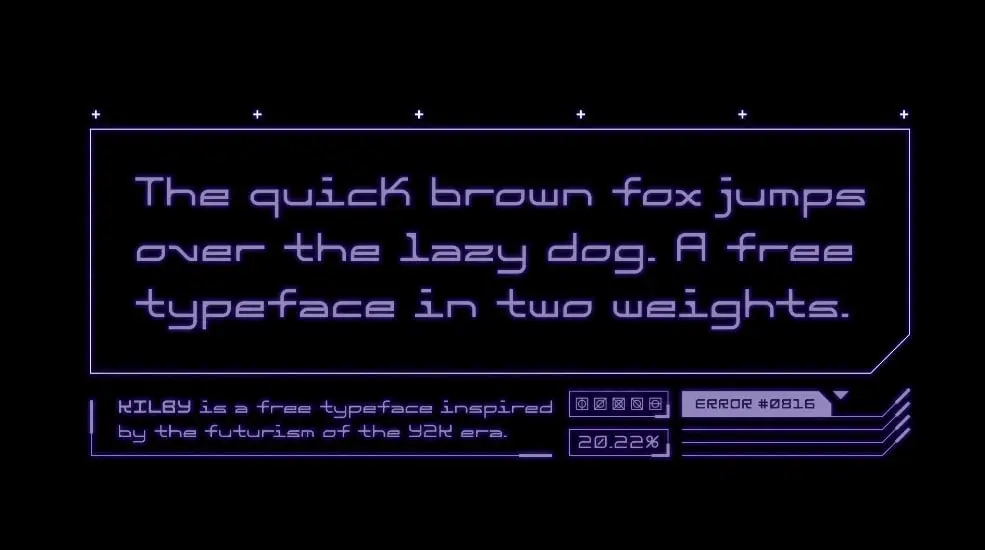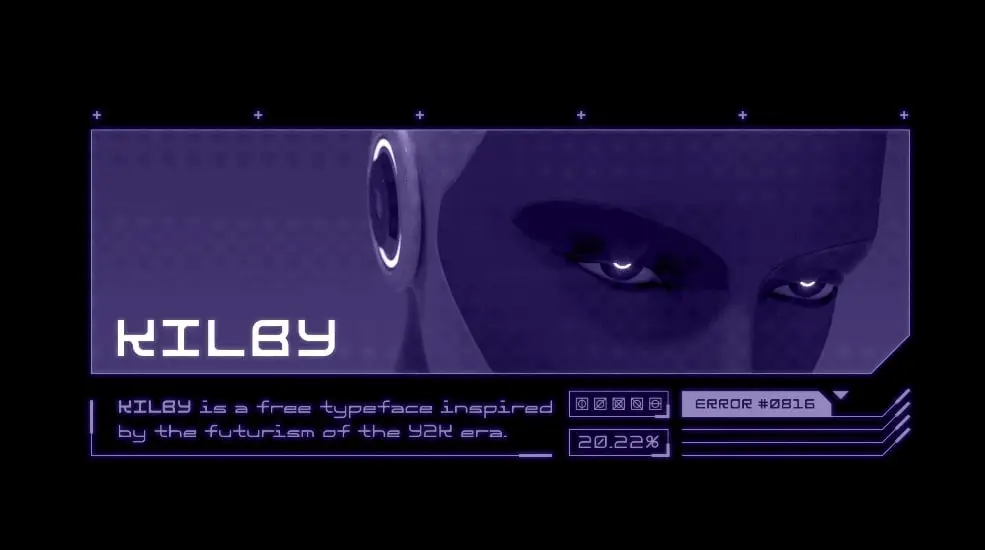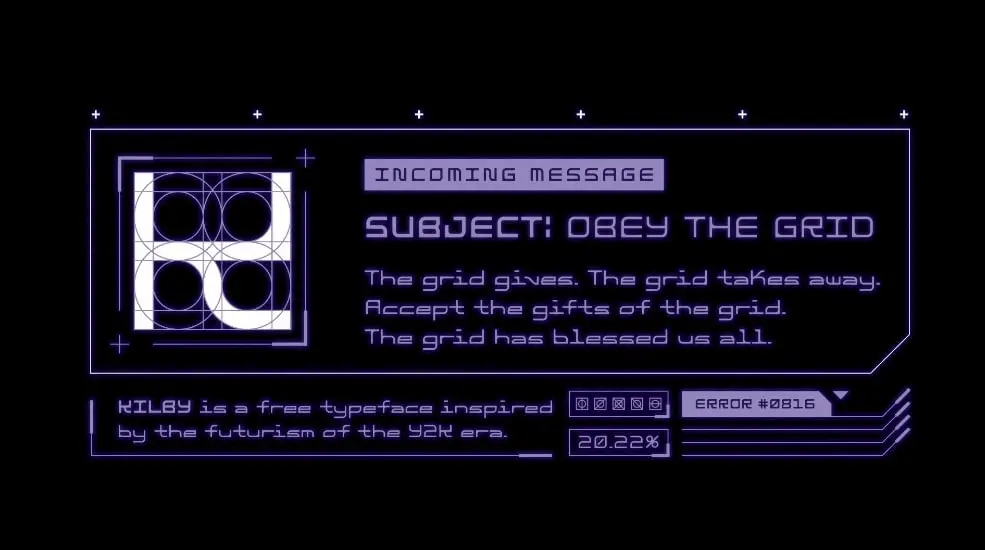
Kilby Font
The Kilby Font is a modern and versatile typeface that brings a unique touch to your designs. With its clean lines and contemporary style, it is suitable for a variety of applications, including branding, logos, web design, and print materials.
• Multiple font weights for flexibility
• Stylish uppercase and lowercase letters
• Numerous ligatures and special characters
• Easy to read at various sizes
• Ideal for creating eye-catching logos and branding materials
• Use in web design for headings and body text
• Perfect for print projects like posters and flyers